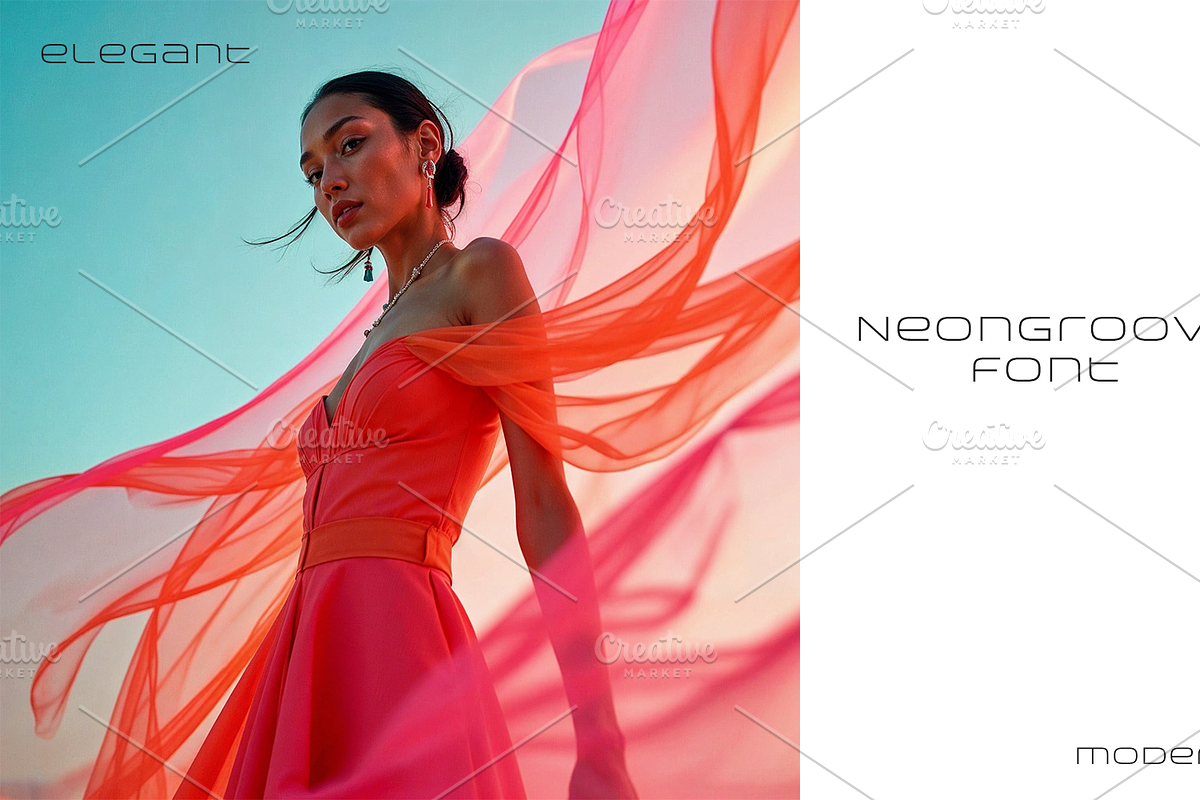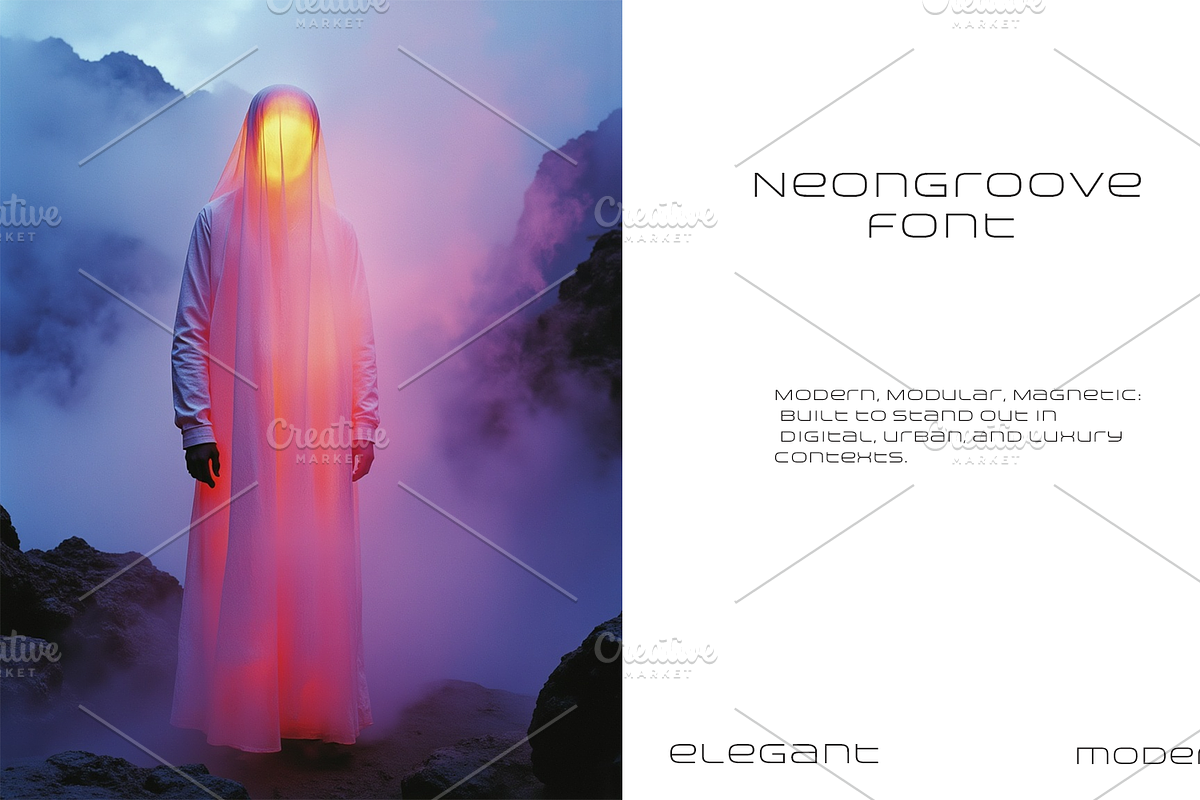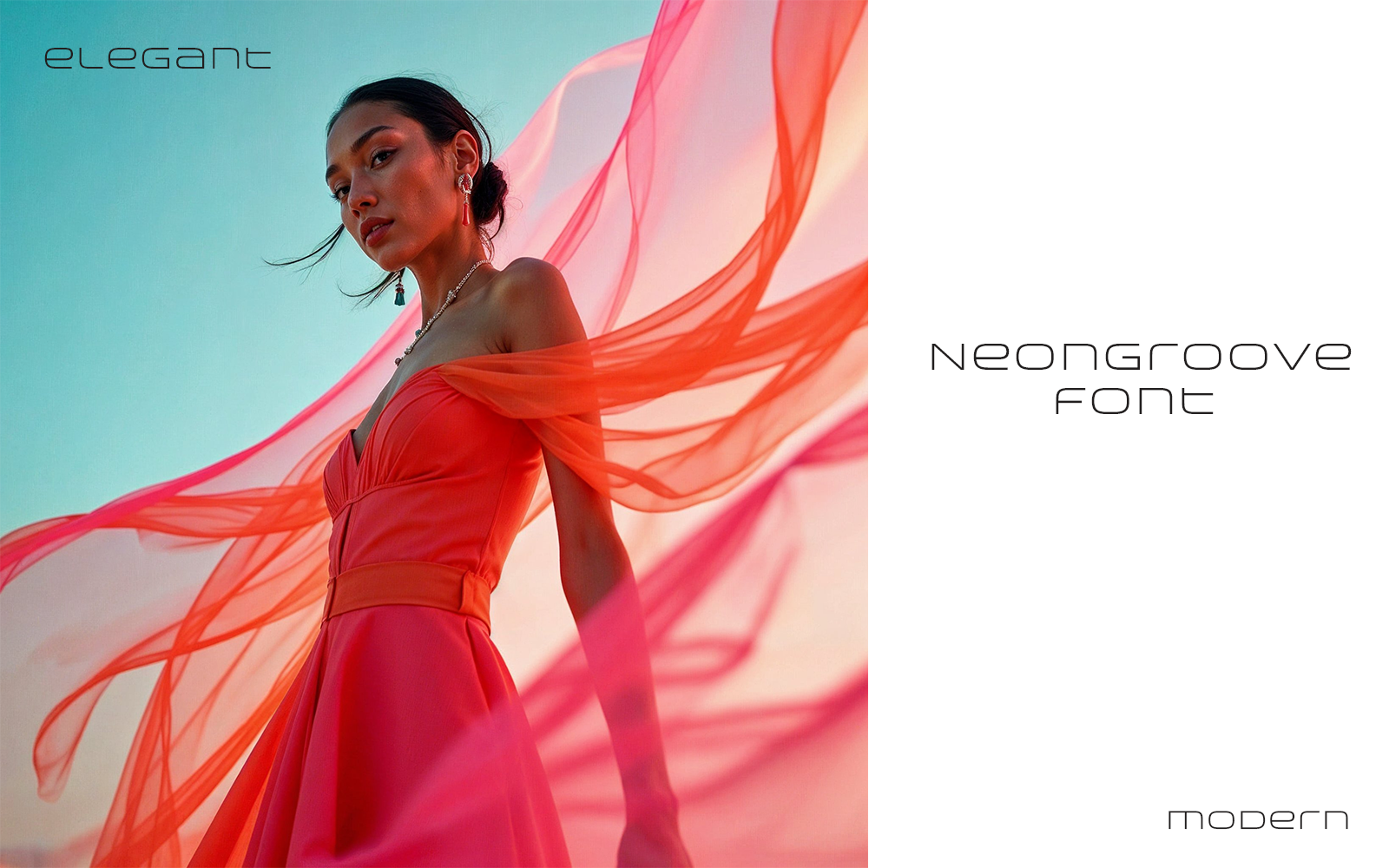
🎧 Introducing NeonGroove — Where Style Moves.
Slick, sharp, and built for the limelight — NeonGroove is the typographic anthem of dance floors, fashion houses, and bold digital campaigns. Born from the rhythm of house music and the lines of haute couture, this typeface turns every word into a headline.
🎶 Engineered for posters, fashion, branding & nightlife
👟 Stylish condensed forms with a pulse
🌀 Maximum visual rhythm, minimum space waste
Whether it’s a mixtape cover, runway invite, or kinetic branding — NeonGroove makes your message move.
💡 NeonGroove — Typography that walks, dances, and commands attention.